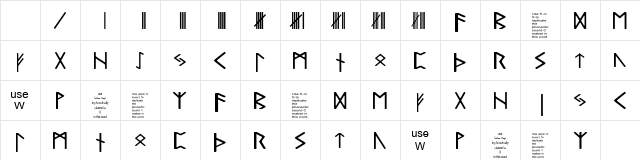
Pauls Real Celtic Rune Font Regular
Design Context for Pauls Real Celtic Rune Font
Pauls Real Celtic Rune Font is a composed and adaptable typeface that performs quietly and consistently across a wide range of design contexts.